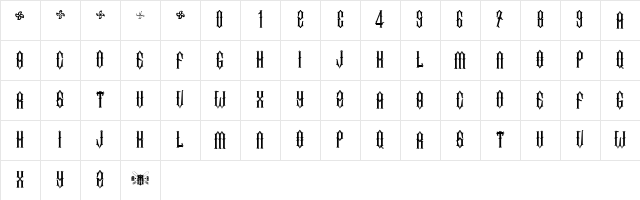
Two Fingers King Light is a composed and adaptable typeface that performs quietly and consistently across a wide range of design contexts. Its slender proportions lend an understated elegance to any composition.